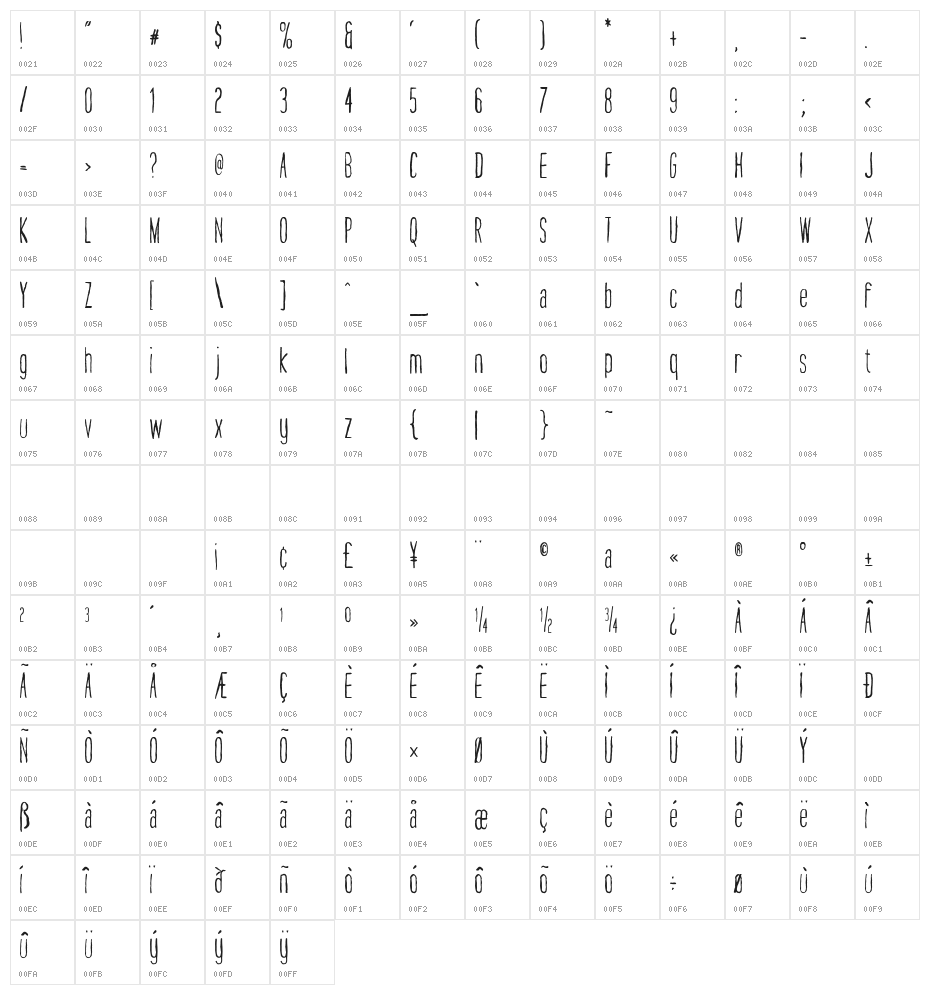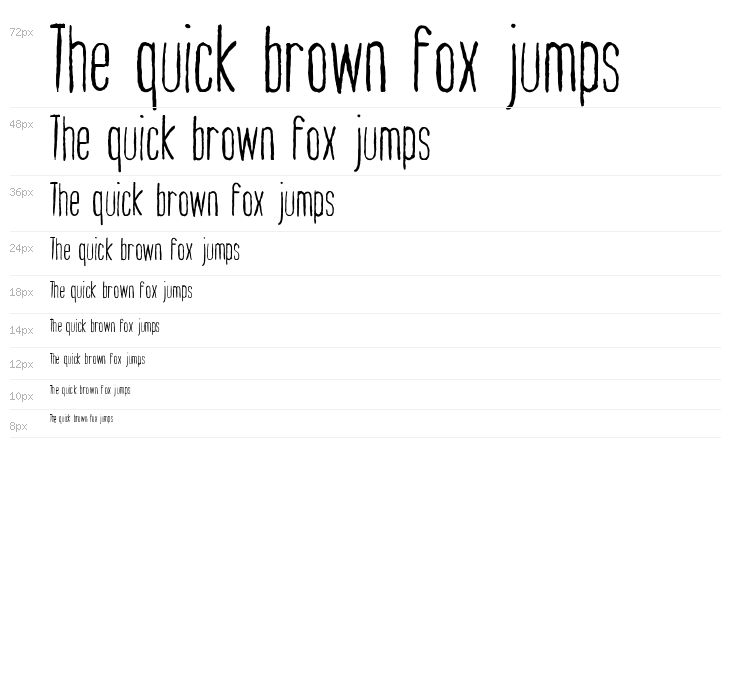
Nairobi Font
Nairobi Description
This font features a unique, hand-drawn aesthetic with a slightly irregular and organic appearance. The characters are tall and narrow, giving it a condensed look. The strokes are uneven, adding a rustic and artistic feel. The uppercase and lowercase letters maintain a consistent style, with the lowercase being slightly smaller and more rounded. Numbers and special characters follow the same design principles, ensuring a cohesive appearance across all glyphs. The font's distinctive style makes it suitable for creative and informal projects.
| Proposed Projects | Ideal for artistic projects, posters, branding, and any design requiring a handmade touch. |